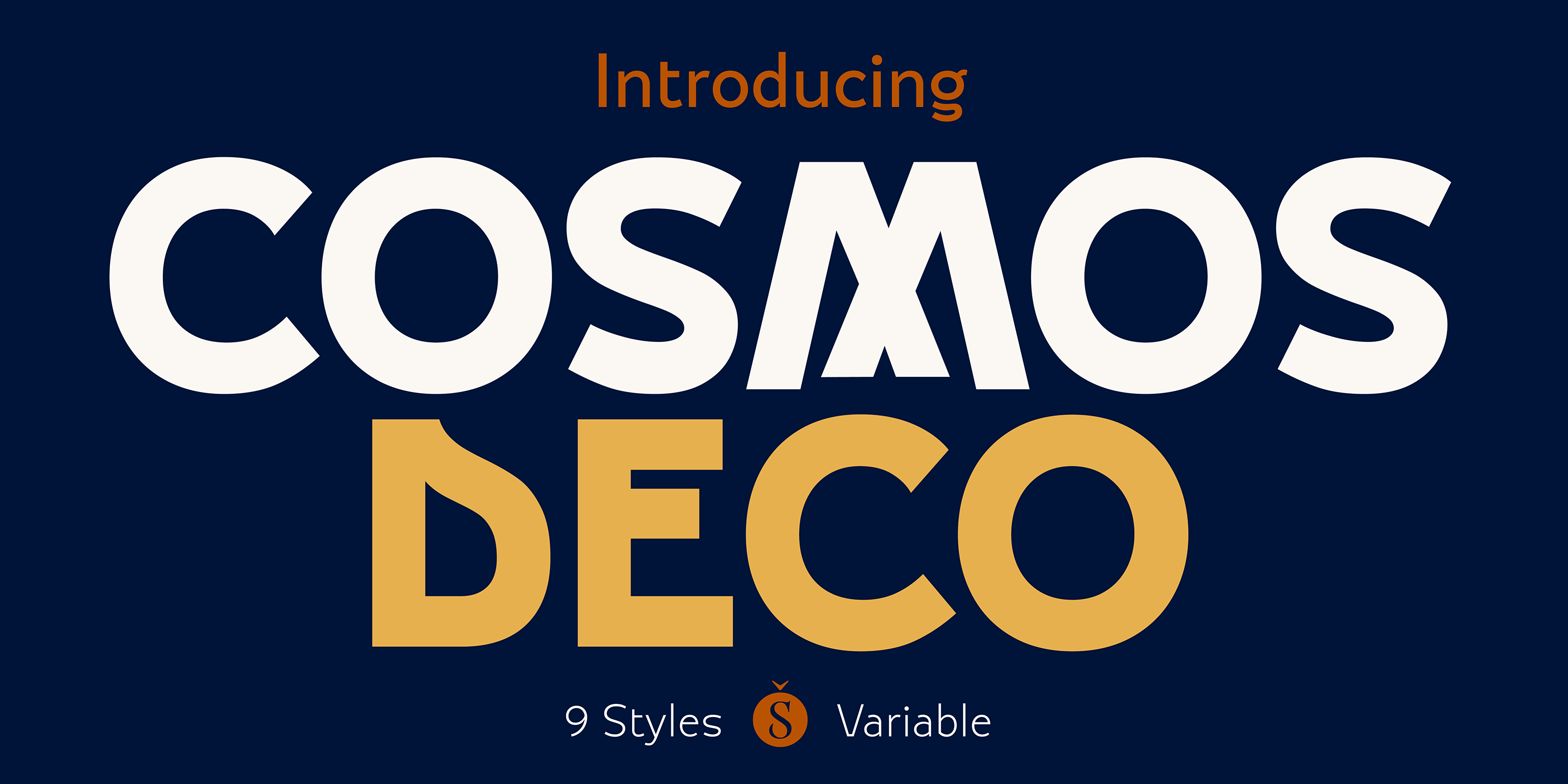
If you want to add a touch of vintage glamour with a futuristic twist, Cosmos Deco Font Free Download is your ideal pick. This art deco-inspired font combines bold geometric shapes with sleek lines, perfect for branding, posters, packaging, and any design that needs a stylish retro vibe.
Cosmos Deco Font Free Download features sharp edges and elegant curves that make your text pop with sophistication and flair. Whether you're crafting luxury brand visuals or event invitations, this font offers a unique blend of nostalgia and modernity.
Perfect for fashion, entertainment, and lifestyle brands, Cosmos Deco adds a classy, timeless touch that captivates your audience.